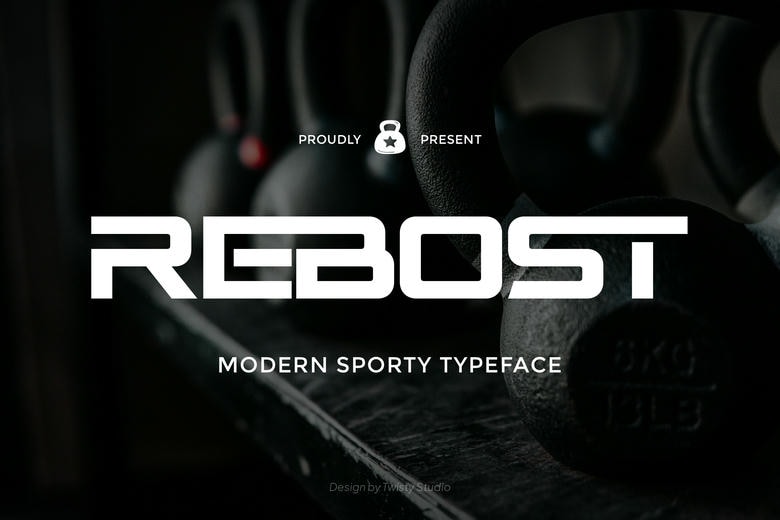
Rebost Font
Rebost is a modern, sporty typeface that shows off speed, strength, and a bold, competitive spirit. Its sharp shapes, dynamic angles, and solid build give it an energetic look that stands out. This typeface works well for high-impact visuals and adds a sense of motion and intensity.
It’s a good pick for projects that need a strong, active look. Its clean, bold style keeps things clear and still feels modern and athletic.
Rebost Display Font